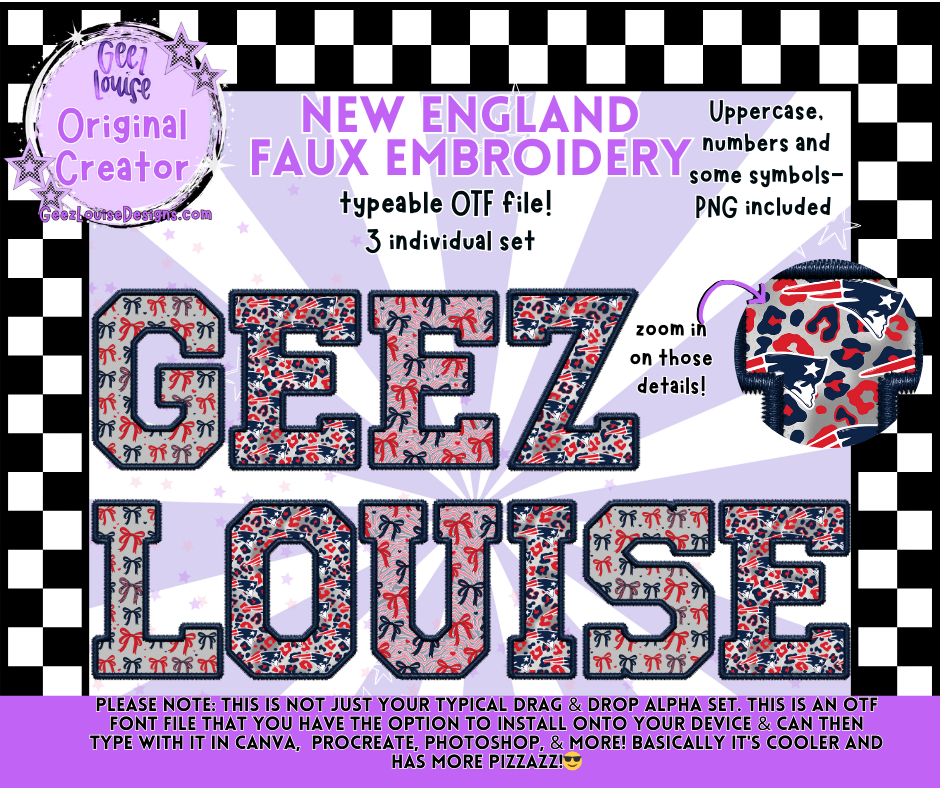
New England Faux Embroidery Alpha Typeable OTF Alpha Font + PNG Sets
Show off your red, white, and bold with the New England Faux Embroidery Alpha—a patriotic, stitched-up typeable OTF font packed with texture, pride, and star-spangled flair.
Uppercase Letters, Numbers & Select Symbols
🎨 Design Style
Red, white, and blue embroidery with crisp stitched edges
Bold, textured, and full of personality
Uppercase letters only
If you’re over basic fonts and ready to rock stitched swagger with a side of patriotism, New England Faux Embroidery delivers.